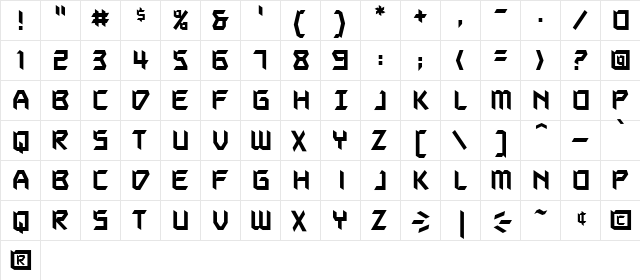
Autodestruct BB Regular
| Foundry | Nate Piekos. Blambot.com |
| Designer | Nate Piekos |
Design Context for Autodestruct BB Typeface
Autodestruct BB is a composed and adaptable typeface that performs quietly and consistently across a wide range of design contexts.